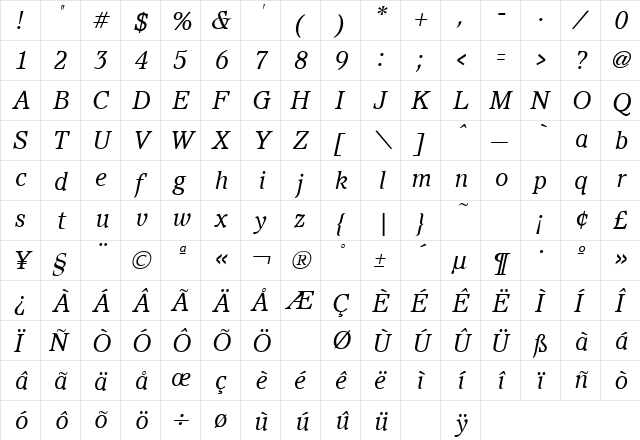
Pacella Italic
Design Context for Pacella Typeface
Pacella is a composed and adaptable typeface that performs quietly and consistently across a wide range of design contexts. The dynamic lean of this cut emphasises speed and emphasis in any layout.
Pro Tip: Use Pacella for emphasis, pull quotes, and subheadings where its slanted energy can add rhythm to the layout.